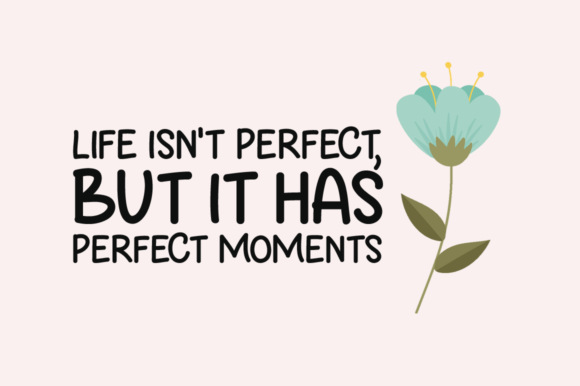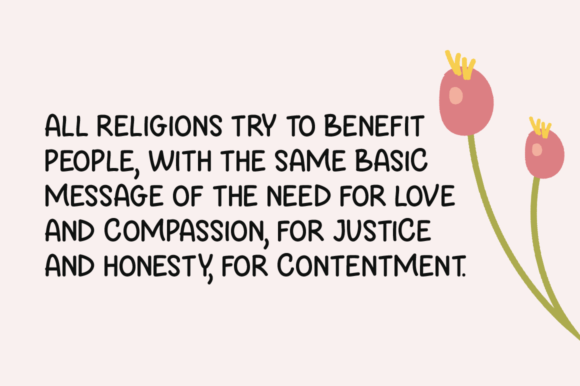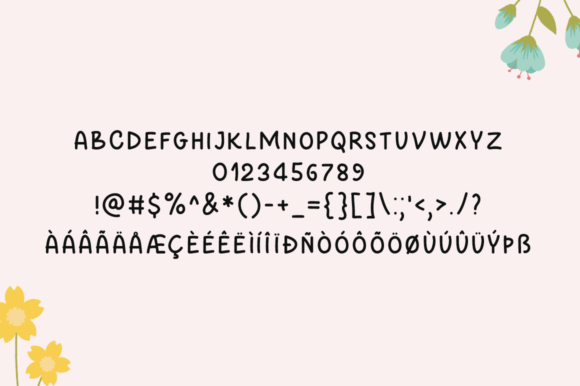
Introducing Be Honest Font: A Simple yet Powerful Handwritten Font
Are you tired of using generic fonts that fail to make your designs stand out? Look no further than Be Honest Font, a simple and neat handwritten font that’s perfect for designers and crafters alike. With its natural and unique style, Be Honest Font is incredibly versatile and can be used in a wide range of designs, from creative projects to commercial endeavors.
The Characteristics of Be Honest Font
So, what makes Be Honest Font so special? For starters, its handwritten style gives it a personal and approachable feel that’s hard to achieve with more formal fonts. The letters are carefully crafted to have a natural flow and rhythm, making it easy to read and understand. The font is also highly legible, even at smaller sizes, which makes it perfect for use in a variety of applications.
The Benefits of Using Be Honest Font
There are many benefits to using Be Honest Font in your designs. Here are just a few:
- Unique Style: Be Honest Font has a unique and distinctive style that will help your designs stand out from the crowd. Whether you’re creating a logo, a poster, or a social media graphic, Be Honest Font is sure to make your design look fresh and modern.
- Versatility: Be Honest Font is incredibly versatile and can be used in a wide range of designs. Whether you’re creating a formal or informal design, Be Honest Font is sure to fit the bill.
How to Use Be Honest Font in Your Designs
Using Be Honest Font in your designs is easy. Here are a few tips to get you started:
- Pair it with Other Fonts: Be Honest Font looks great when paired with other fonts. Try pairing it with a bold sans-serif font for a striking contrast.
- Use it for Headings and Titles: Be Honest Font is perfect for use in headings and titles. Its unique style makes it stand out and grab attention.
- Experiment with Colors: Be Honest Font looks great in a variety of colors. Experiment with different colors to find the one that works best for your design.
- What is Be Honest Font?: Be Honest Font is a simple and neat handwritten font that’s perfect for designers and crafters.